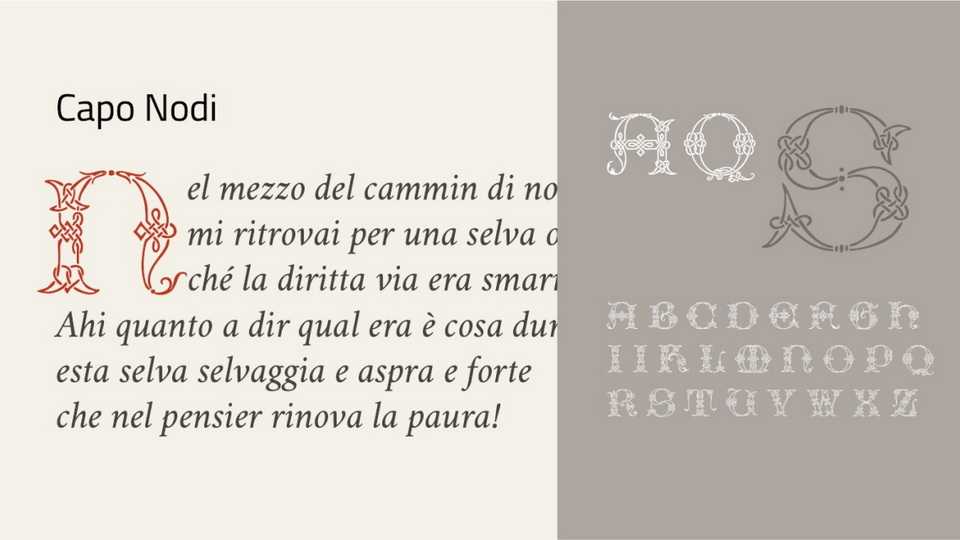
Download Capo Nodi font, a decorative display typeface that captures the intricate beauty and refinement of Renaissance typography.
Designer: Michele Casanova